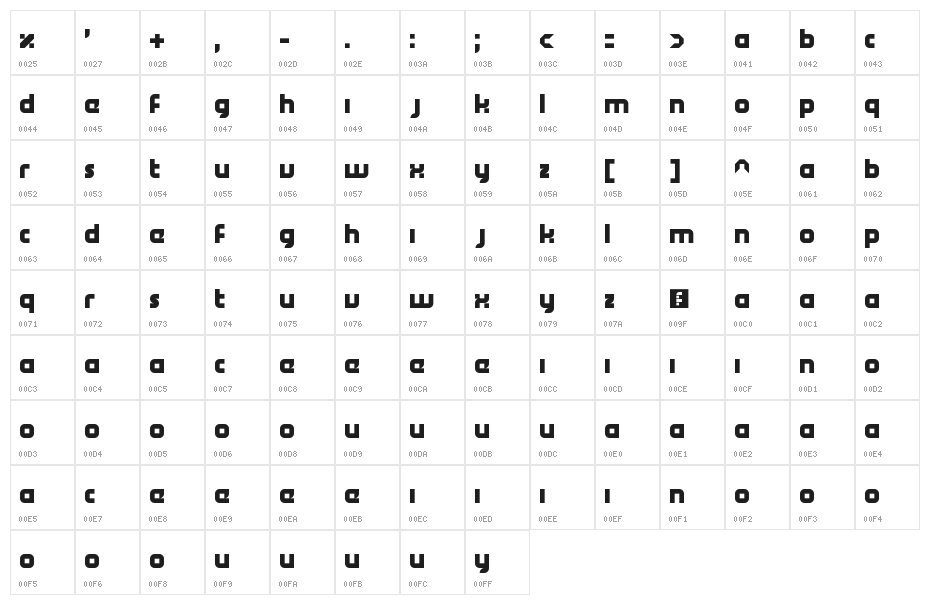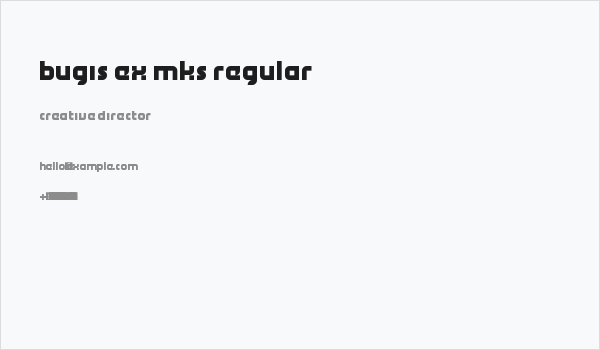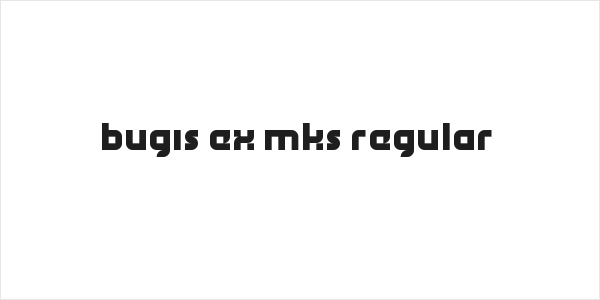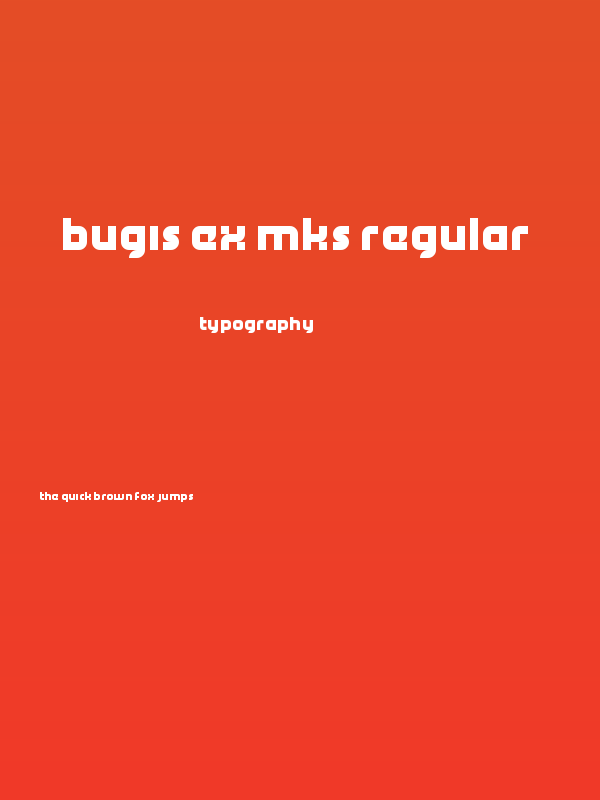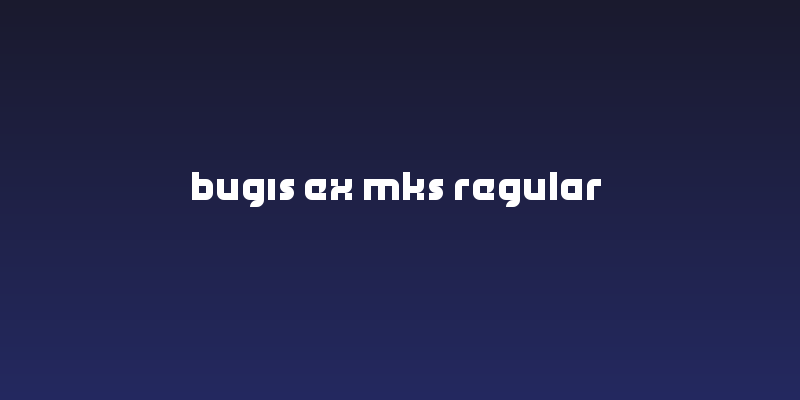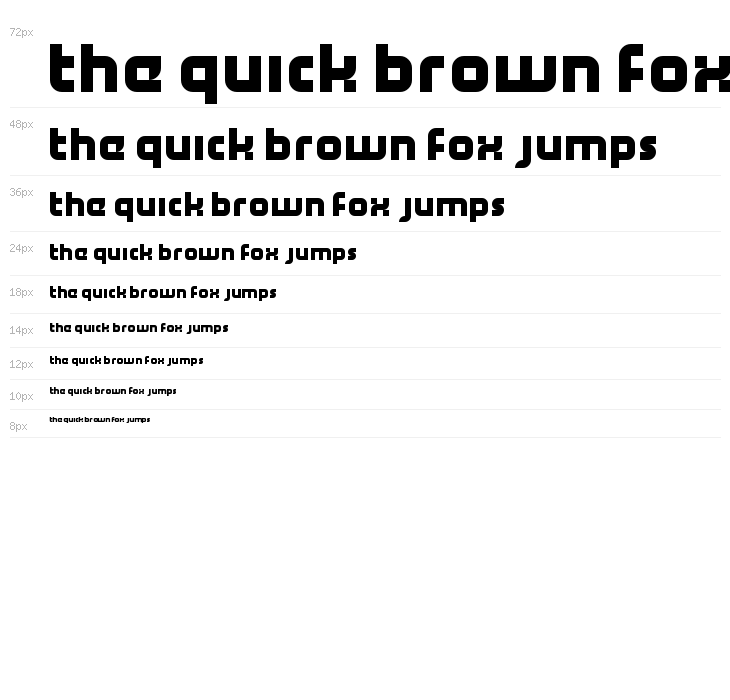
bugis ex mks Regular Font
bugis ex mks Regular Description
This font features a bold and geometric design with a strong presence. The characters are constructed with thick, uniform strokes that create a sense of stability and modernity. The rounded edges soften the overall appearance, adding a touch of friendliness to the otherwise robust structure. The font maintains a consistent weight throughout, ensuring readability and clarity. Its unique style is characterized by a blend of straight lines and subtle curves, making it suitable for various design applications. The spacing between characters is tight, contributing to its compact and cohesive look.
| Proposed Projects | Ideal for branding, headlines, posters, and modern digital interfaces. |